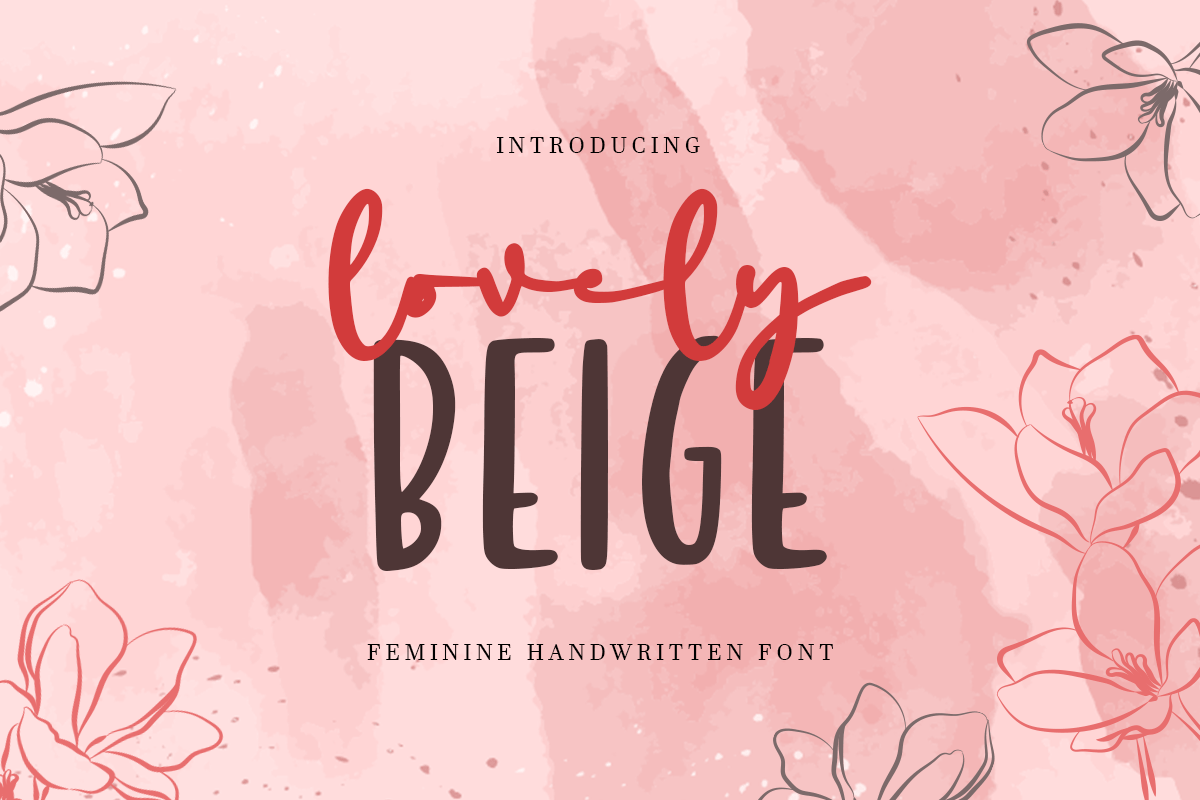
lovely beige
-feminine handwritten font
lovely beige
Lovely Beige is A Handwritten Font with cute and feminine style and so charming. This font specially crafted for your branding, quotes design projects or cute logo, unique, modern for any designs such as print, merchandise, and so many more with easy to use but unique results are so playful.